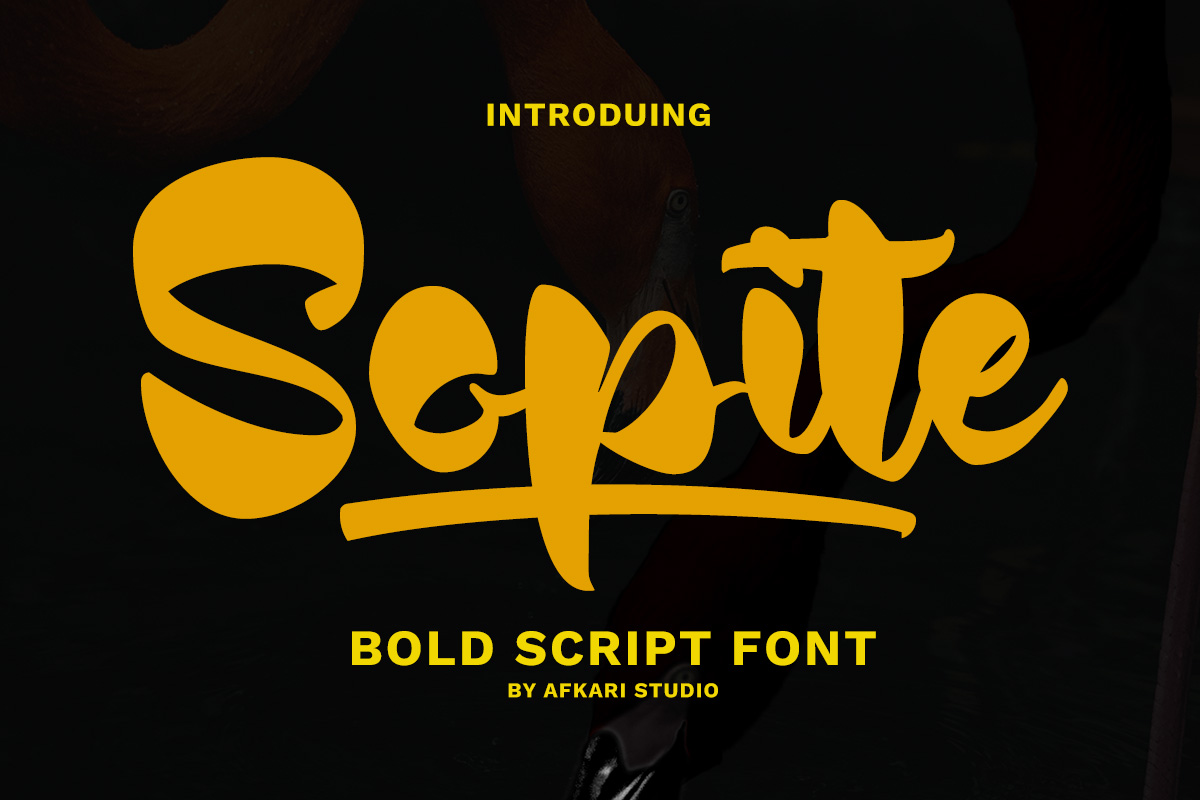
Sopite - Handwritten Bold Script Font Font
Designed by Afkari Studio
About Sopite - Handwritten Bold Script Font
Sopite – Handwritten Bold Script Font is all about making a statement with style. It has that bold, confident energy of a handwritten note—like something scribbled quickly but with purpose. The strokes are strong, the curves are smooth, and the whole vibe feels personal yet powerful.
Sopite - Handwritten Bold Script Font